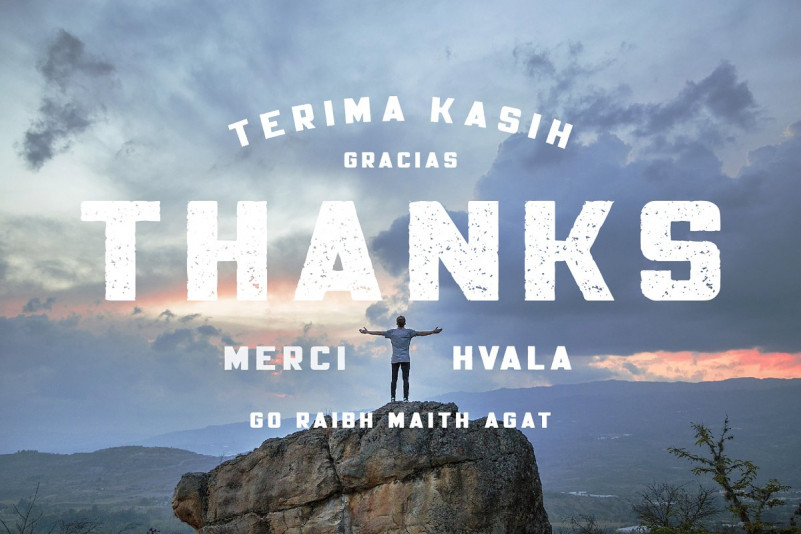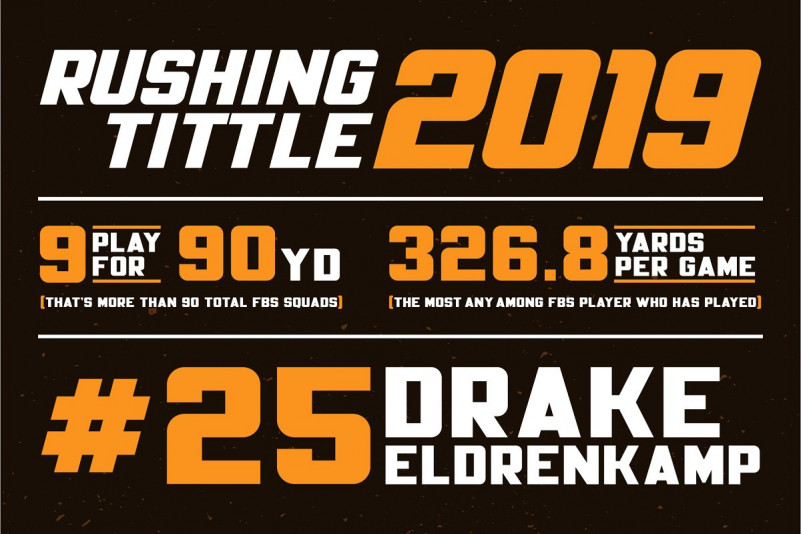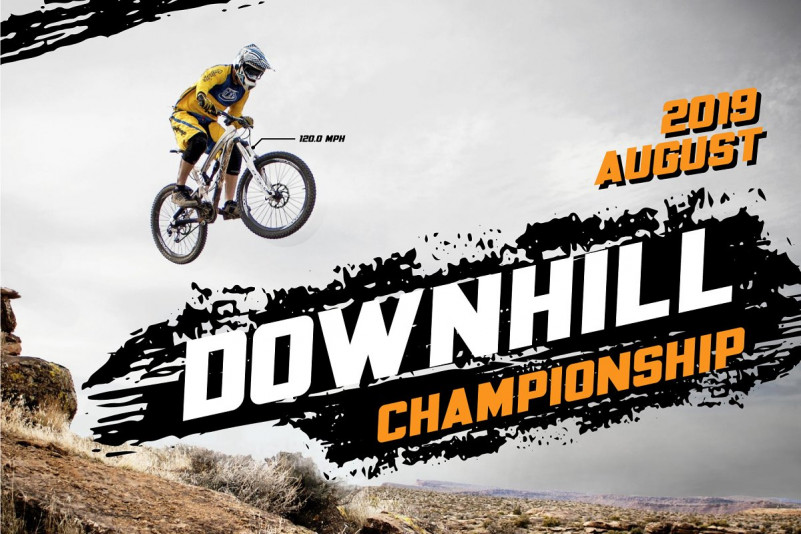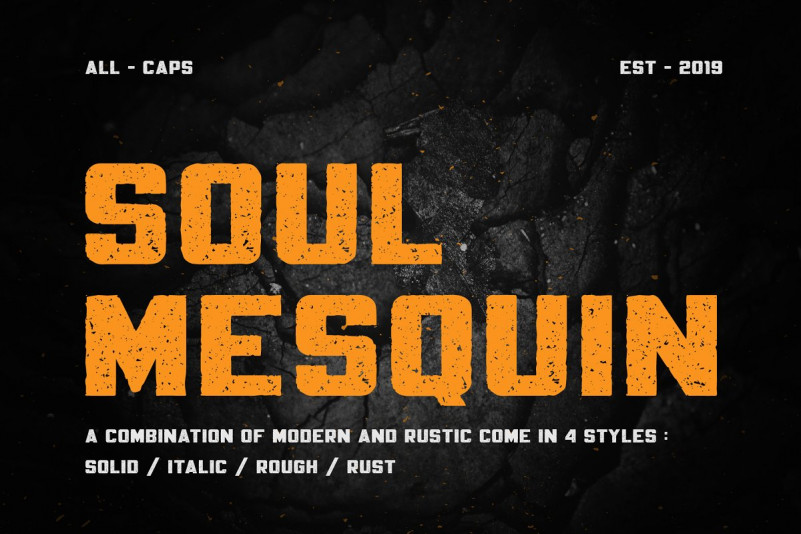
Mesquin Typeface
Hi Font Lover! This is a combination of modern and rustic come in 4 styles! This is an amazing typography for Bold and Modern Ideas. You will love it! Introducing Mesquin Font. Mesquin is an all uppercase sans serif font with geometric shapes of characters. It is inspired by lettering from the industrial and good old past, but it still has a strong modern appearance. Its allows versatile design options and works perfectly for headlines, logos, posters, packaging, T-shirts, postcards and much more.